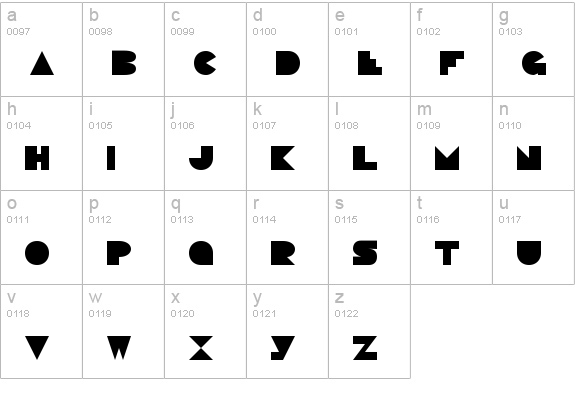
Pacmania Font Details
Introducing Pacmania, a captivating font that will transport you straight into the exciting world of retro arcade games. This font is inspired by the iconic Pac-Man game, with its playful and energetic design that will instantly bring back nostalgic memories. The Pacmania font features bold and rounded letterforms, reminiscent of the game's iconic characters and maze-like levels. One of the best things about Pacmania font is that it is completely free! Yes, you read that right. You can download and use this font without spending a penny. It's the perfect choice for anyone looking to add a touch of fun and nostalgia to their designs, whether it's for a gaming website, a party invitation, or a creative project. To get your hands on the Pacmania font, simply visit FontsMarket.com, where it is freely available for download. FontsMarket.com is a trusted source for high-quality and diverse font collections, and Pacmania is just one of the many amazing fonts you can find there. So why wait? Bring the spirit of Pac-Man into your designs and let the adventure begin with Pacmania font, the free font that will make your designs pop!